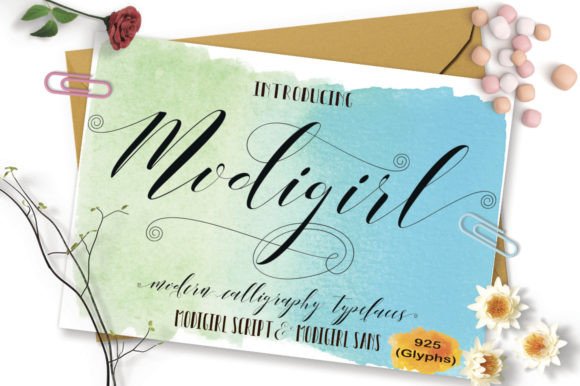
Modigirl Script: A Versatile and Elegant Font for Creative Professionals
In the world of typography, finding a font that combines elegance with versatility can be a challenge. Modigirl Script stands out as a remarkable choice for designers, marketers, and content creators who seek a unique yet professional look in their projects. With its impressive collection of 925 unique handmade glyphs, this font offers an extensive range of stylistic options that cater to various design needs.
The Essence of Modigirl Script
Modigirl Script is more than just a font; it's a creative asset that brings personality and authenticity to any project. Designed with meticulous attention to detail, this script font features a fluid and organic feel that mimics the natural flow of handwriting. The inclusion of 925 glyphs ensures that users have access to a wide array of characters, symbols, and accents, making it suitable for both English and international text.
What makes Modigirl Script particularly noteworthy is its ability to blend seamlessly into different design contexts. Whether you're working on branding materials, social media graphics, or editorial layouts, this font provides a consistent and refined appearance without compromising on individuality.
Key Characteristics and Strengths
One of the most significant advantages of Modigirl Script is its versatility. Unlike many script fonts that are limited to specific use cases, Modigirl Script can be adapted for a variety of applications. Its clean lines and balanced proportions make it ideal for headings, logos, and even body text when used appropriately.
The font's extensive glyph set also enhances its usability. Designers can easily incorporate special characters, ligatures, and alternate forms to add visual interest and depth to their work. This level of customization allows for greater creativity and personalization, which is especially valuable in competitive markets where differentiation is key.
Another notable feature of Modigirl Script is its readability. Despite being a script font, it maintains a high level of legibility, ensuring that messages remain clear and easy to understand. This characteristic is crucial for professional settings where clarity and professionalism are paramount.
Real-World Applications and Performance
For professionals across various industries, Modigirl Script can serve as a powerful tool to elevate their visual communication. Entrepreneurs and small business owners can use it to create eye-catching brand identities that resonate with their target audience. Marketers and advertisers may find it useful for crafting compelling headlines and promotional materials that stand out in a crowded digital landscape.
Educators and publishers can benefit from Modigirl Script by incorporating it into educational resources or publications that require a more engaging and approachable aesthetic. Freelancers and creators, such as bloggers and content writers, can enhance the visual appeal of their websites and social media platforms using this font to maintain a cohesive brand image.
However, it's important to consider the limitations of Modigirl Script. While it excels in decorative and expressive contexts, it may not be the best choice for long-form text where readability is critical. In such cases, pairing it with a more conventional sans-serif or serif font could provide a better balance between style and function.
Who Benefits Most from Modigirl Script?
Modigirl Script is particularly well-suited for individuals and organizations that prioritize aesthetics without sacrificing functionality. Creatives looking to add a touch of sophistication to their designs will find this font invaluable. It is especially effective for projects that aim to convey warmth, creativity, and a personal touch.
Professionals in fields such as graphic design, marketing, and publishing will appreciate the font's adaptability and the ease with which it can be integrated into existing workflows. Additionally, anyone seeking to differentiate their brand or content through unique typography should consider Modigirl Script as a viable option.
While it may not be the best fit for all scenarios, Modigirl Script offers a compelling solution for those who value both artistic expression and practical application in their design choices.
Quality, Usability, and Long-Term Value
The quality of Modigirl Script is evident in its craftsmanship and attention to detail. Each glyph has been meticulously designed to ensure consistency and visual harmony throughout the font family. This level of precision contributes to its overall reliability and effectiveness in real-world applications.
From a usability perspective, Modigirl Script is straightforward to implement and integrate into design software. Its compatibility with major design tools and platforms ensures that users can leverage its capabilities without encountering technical barriers. Furthermore, the font's comprehensive character set supports multilingual projects, expanding its utility beyond English-speaking audiences.
Ultimately, whether you're an experienced designer or a novice exploring new typographic possibilities, Modigirl Script offers a compelling blend of elegance, versatility, and functionality that can enhance your projects and leave a lasting impression on your audience.